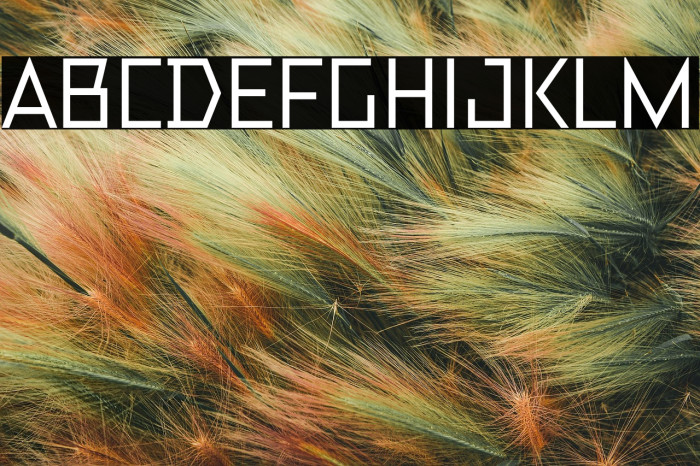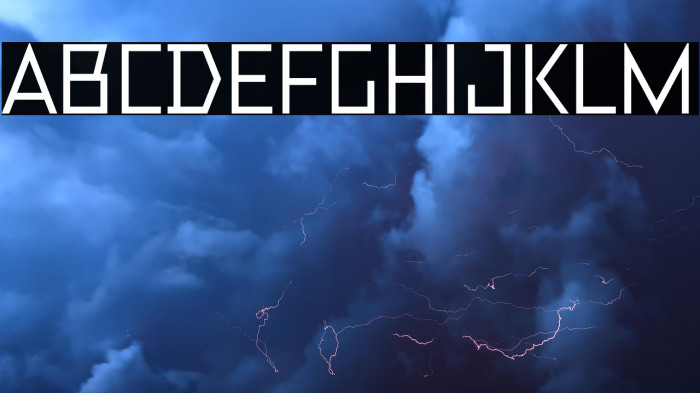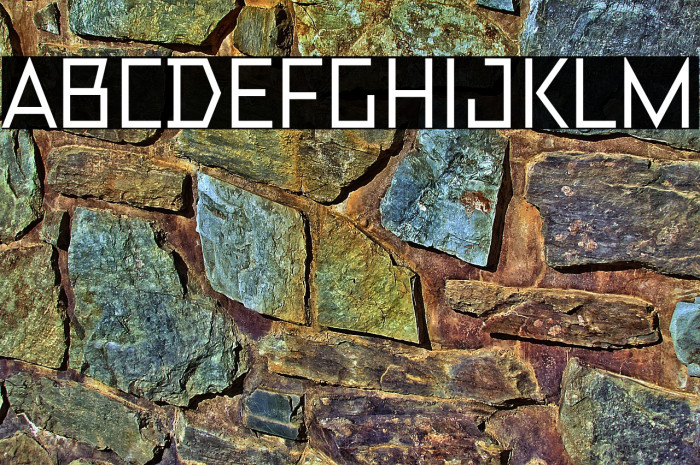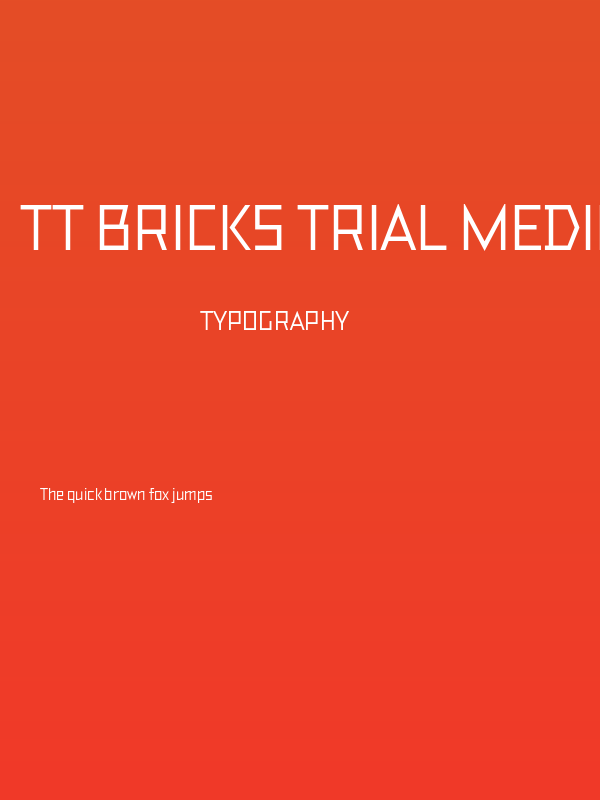
TT Bricks Trial Medium Font
TT Bricks Trial Medium Description
This font features a geometric and modern design with a strong emphasis on straight lines and angular shapes. The characters are constructed with a consistent stroke width, giving it a uniform appearance. The uppercase letters exhibit a bold and confident style, while the lowercase letters maintain a similar geometric structure, ensuring readability. The numerals are distinct and align well with the overall design, making them suitable for various applications. Special characters are crafted with the same attention to detail, seamlessly integrating with the rest of the character set. This font's clean and structured look makes it ideal for projects that require a contemporary and professional aesthetic.
Fonts by TypeType Foundry
| Proposed Projects | Ideal for branding, digital interfaces, signage, and editorial design. |